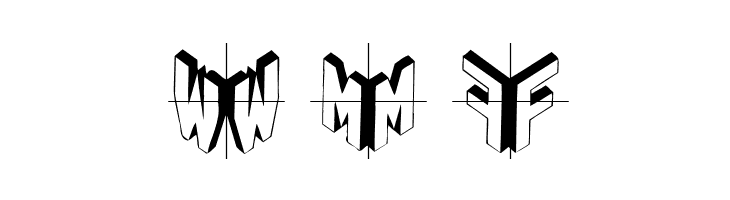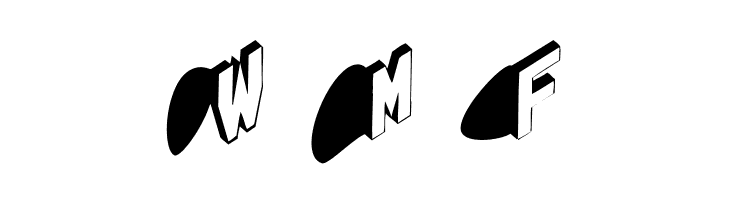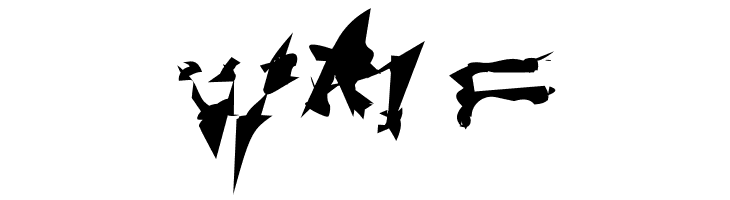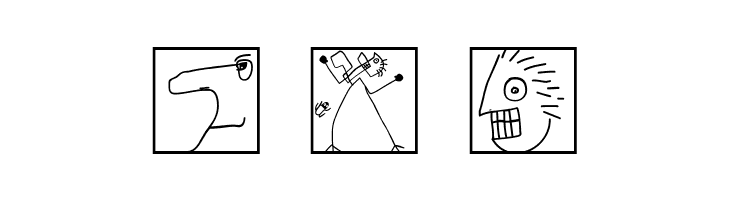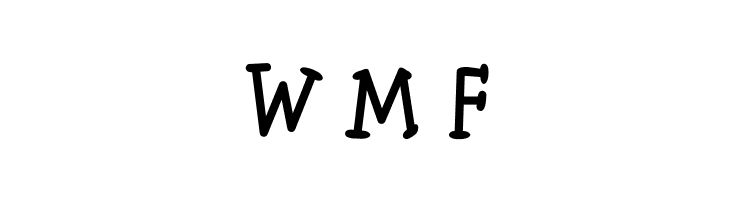
A bold, geometric font with a three-dimensional, futuristic design.
A bold, three-dimensional font with striking shadow effects and geometric styling.
A chaotic, abstract font with jagged, fragmented characters for artistic impact.
A decorative font featuring playful, hand-drawn doodles and illustrations.
A playful and dynamic font with whimsical letterforms and bold strokes.